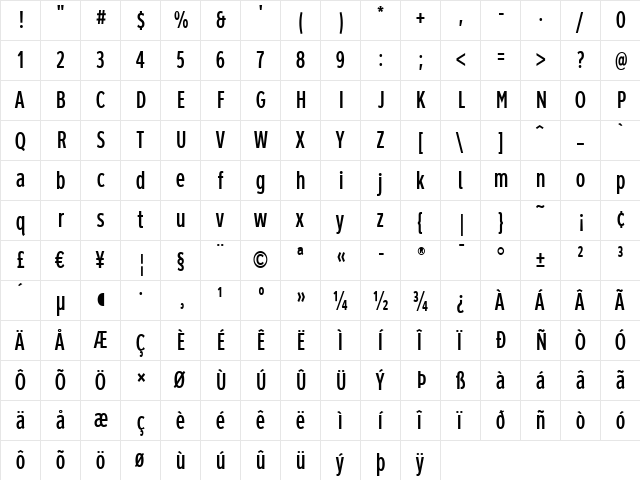
ClearviewHwy-1-B Regular
| Foundry | Terminal Design, Inc |
| Designer | James Montalbano, Donald Meeker, Chris O'Hara |
Design Context for ClearviewHwy-1-B Typeface
ClearviewHwy-1-B offers clean, dependable letterforms without strong stylistic allegiance, making it a practical choice for designers who need flexibility.